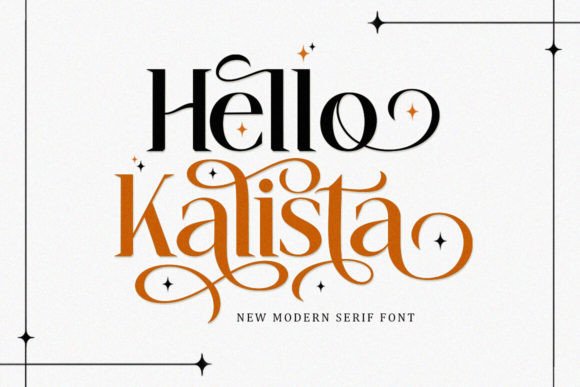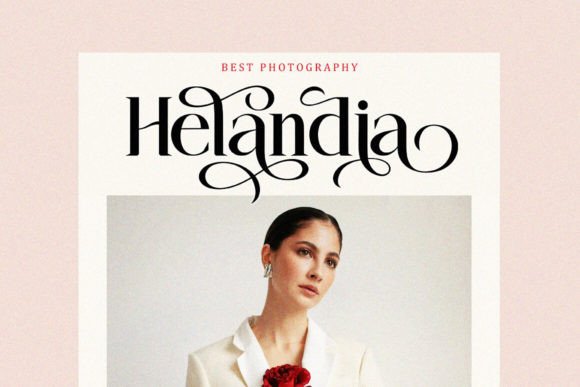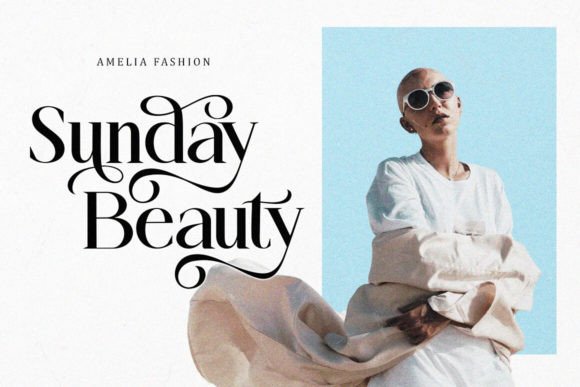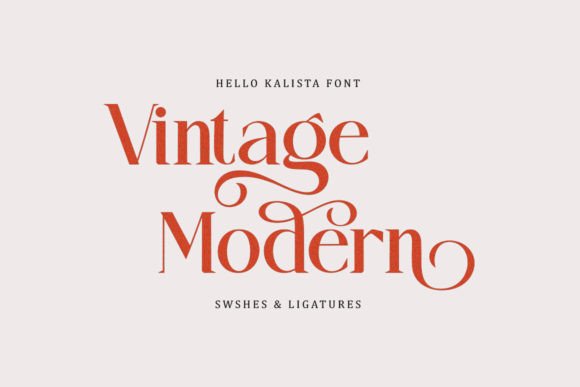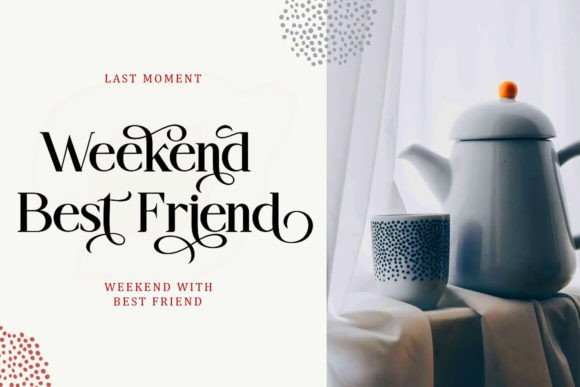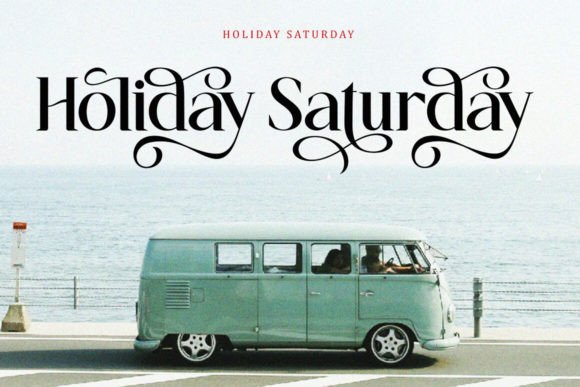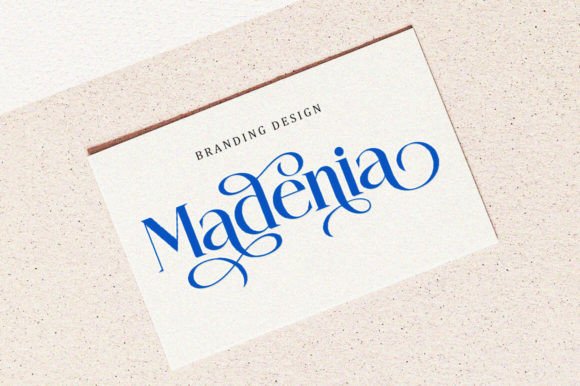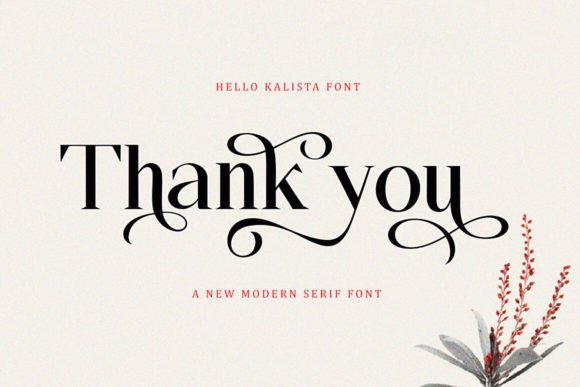
Hello Kalista Font
Hello Kalista is a beautiful and versatile serif font. No matter the topic, this font will be an incredible asset to your fonts’ library, as it has the potential to elevate any creation.